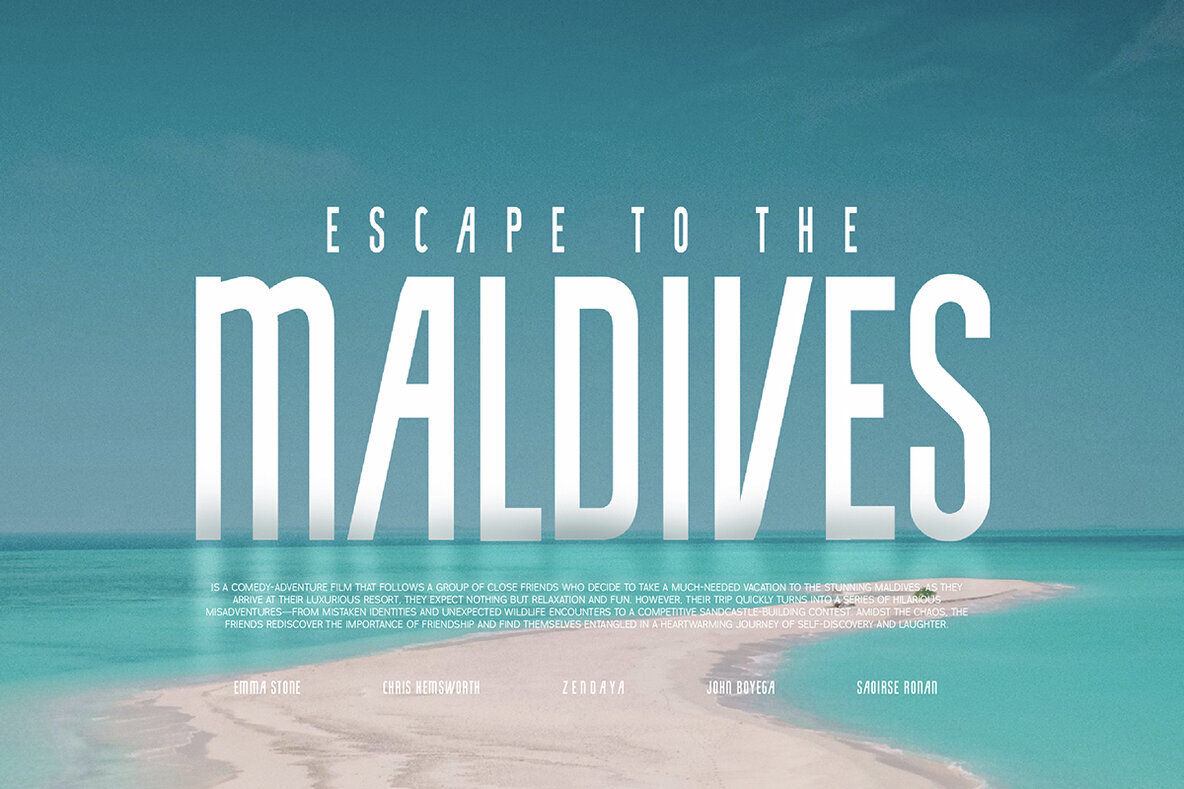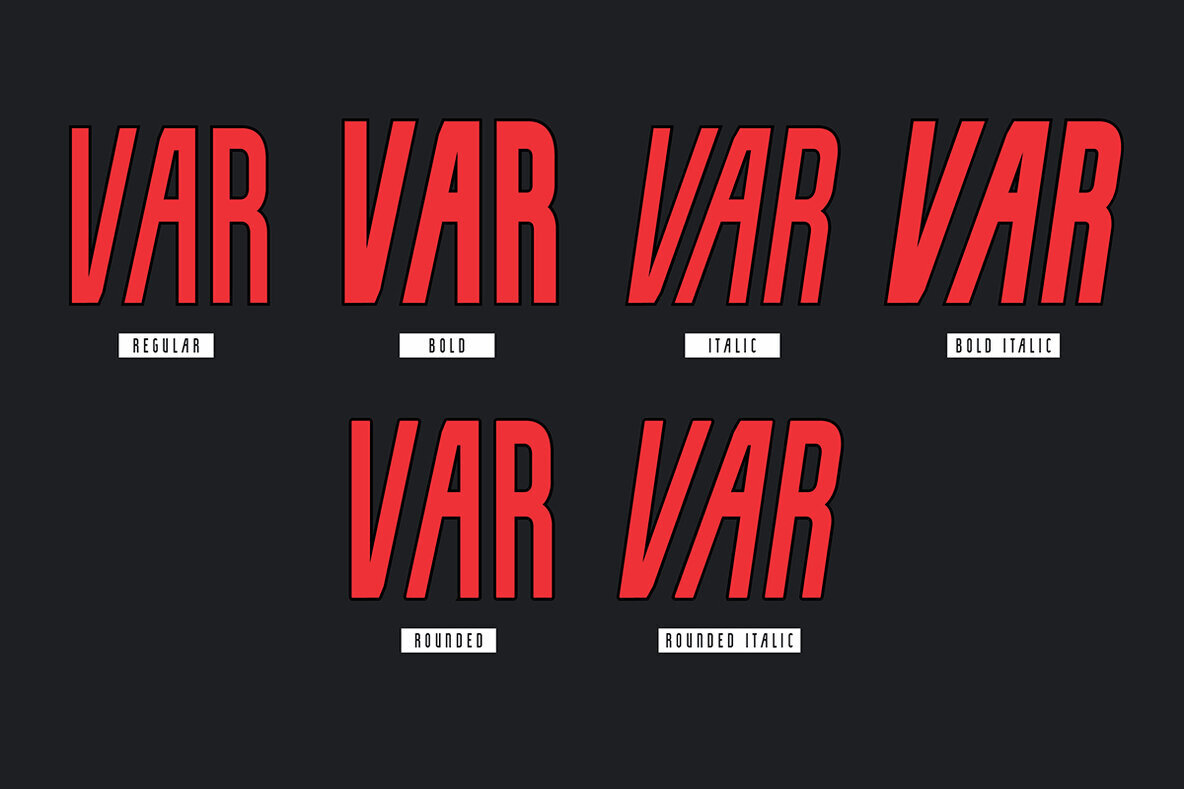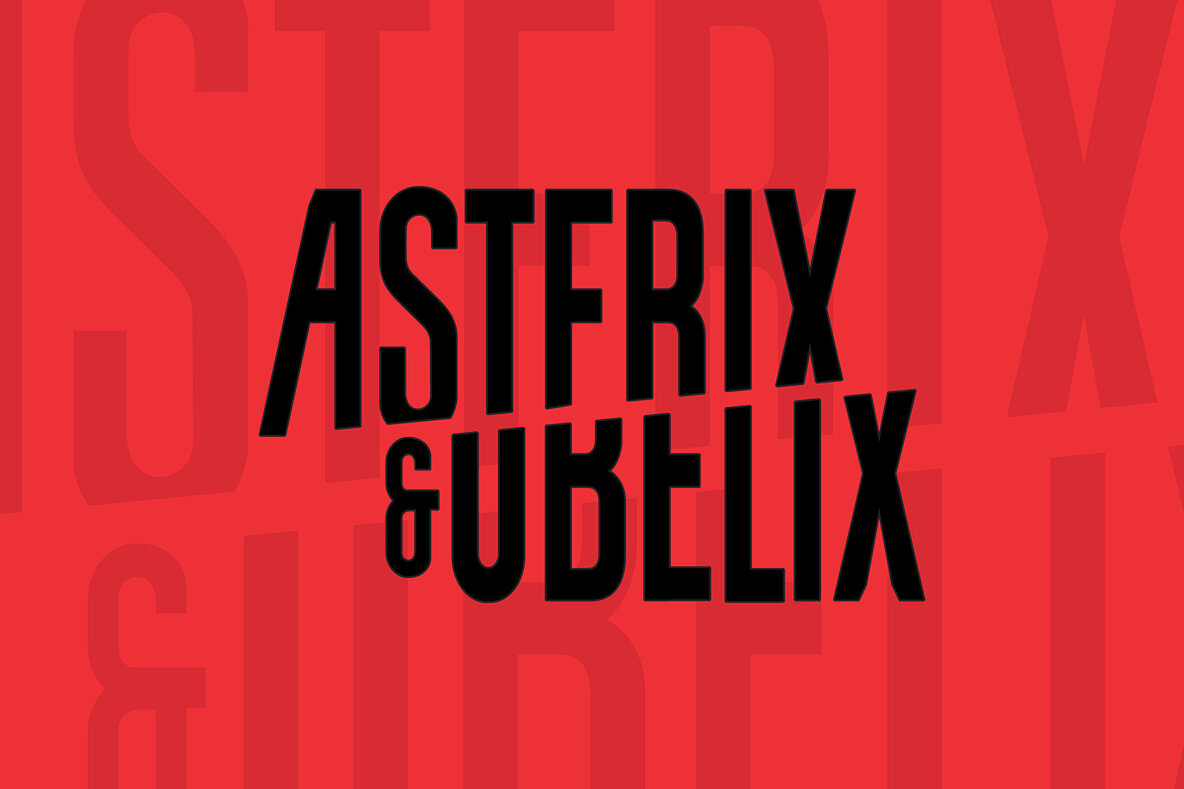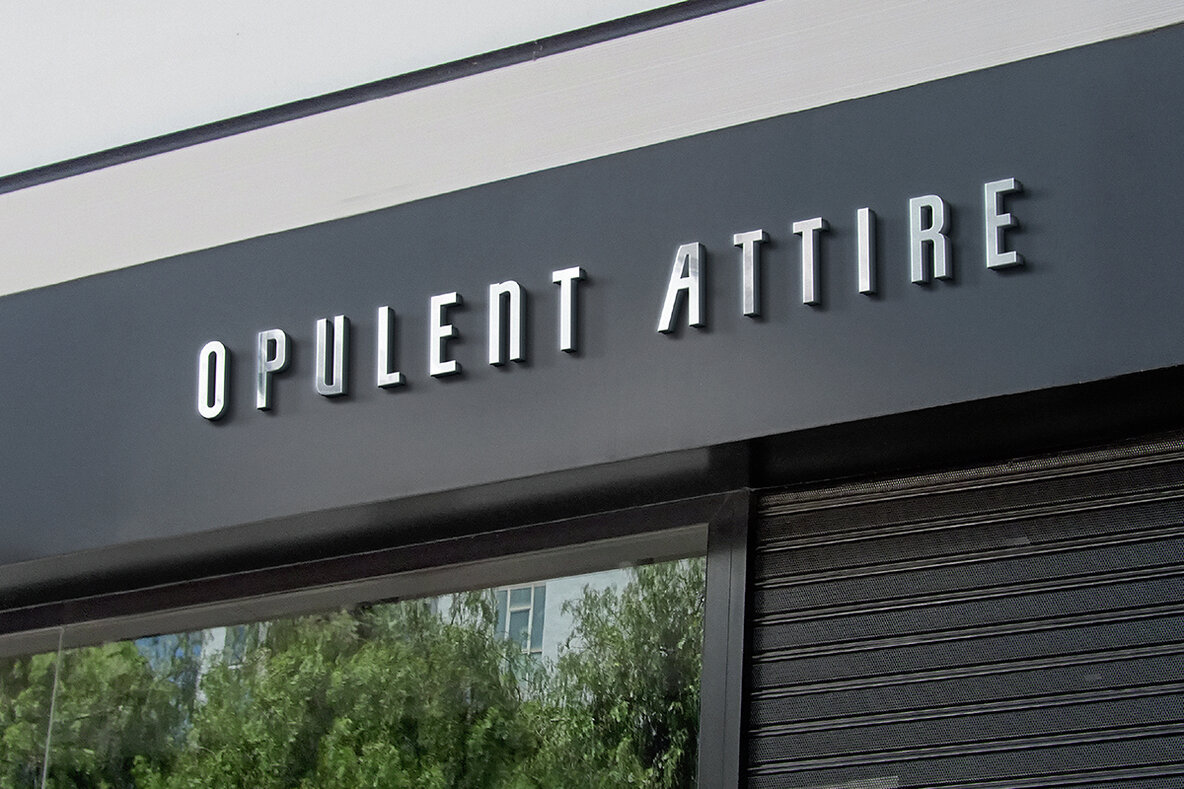
FT Paris Sleek Font
Introducing ParisSleek, a modern, condensed font designed with elegance and precision, ideal for cinematic and sophisticated design projects. With its tall, narrow letterforms and clean lines, ParisSleek exudes a sleek and refined aesthetic, perfect for projects that require a sense of minimalism, style, and class. This typeface is a great choice for film titles, high-fashion branding, or any design where subtle luxury and sharpness are key. Inspired by the effortless elegance of Parisian style, ParisSleek combines simplicity with a touch of sophistication. Its condensed form allows it to command attention without taking up too much space, making it highly functional for both large headlines and more compact designs. The result is a versatile typeface that speaks to modern tastes, while still carrying an air of timeless elegance. Inspiration Behind the Design ParisSleek draws inspiration from the chic, minimalist design language often seen in high fashion and contemporary film posters. The goal was to create a font that balances sharp, geometric lines with a graceful, understated aesthetic, much like the city of Paris itself—known for its blend of old-world charm and cutting-edge style. The font’s condensed form gives it a strong vertical presence, while the clean, straight edges bring a sense of order and refinement, perfect for creating sophisticated yet bold visuals.